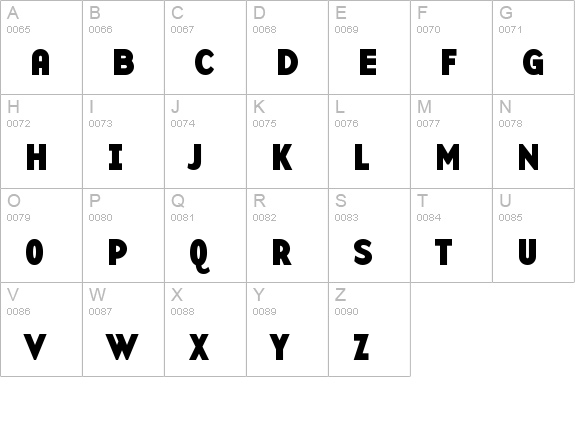
BaseTwelveSansB Font Details
BaseTwelveSansB is a modern and sleek font that combines clean lines with a touch of sophistication. This versatile typeface is perfect for a wide range of design projects, from branding to advertising. Its balanced letterforms and easy readability make it ideal for both digital and print applications. What sets BaseTwelveSansB apart is its unique design that effortlessly blends simplicity with elegance. The font exudes a sense of professionalism while maintaining a contemporary edge. Whether you're creating a logo, designing a website, or crafting marketing materials, BaseTwelveSansB is sure to elevate your project to the next level. And the best part? BaseTwelveSansB is completely free to download at FontsMarket.com. So go ahead and add this stylish and sophisticated font to your collection today!